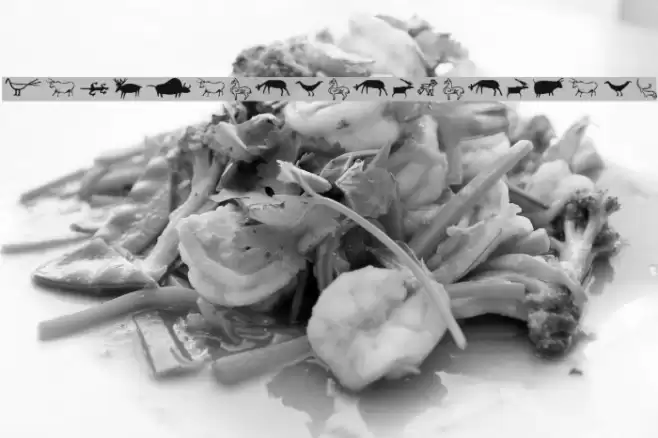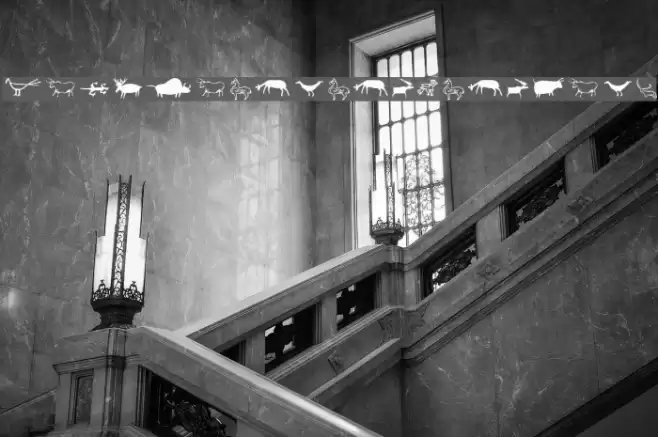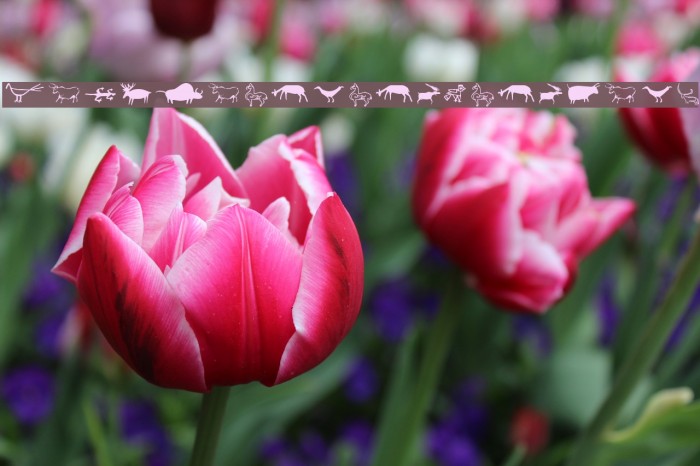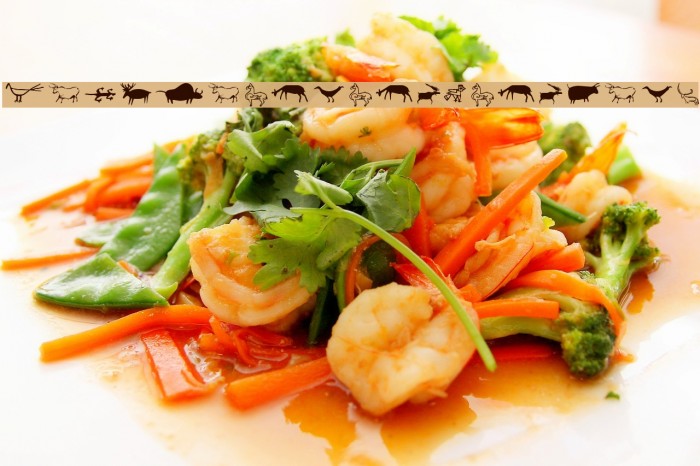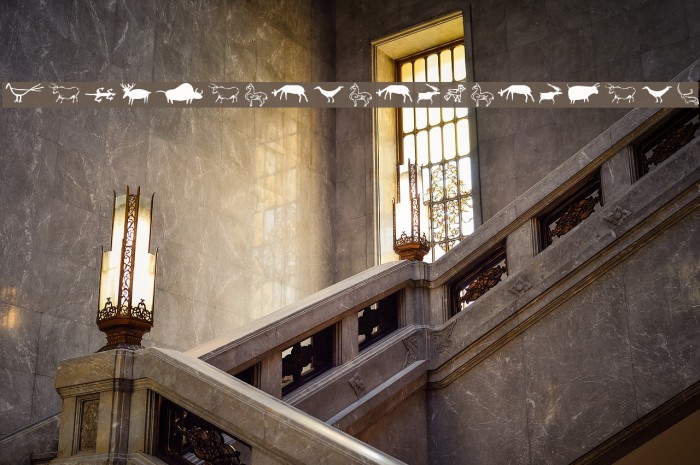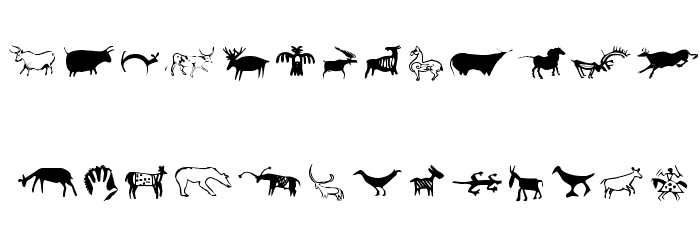
This collection features a series of pictographic symbols inspired by ancient cave paintings. Each character is a unique representation of animals and figures, capturing the essence of prehistoric art. The designs are bold and simplistic, with a focus on silhouette and form. The characters vary in complexity, from simple line drawings to more detailed depictions, all maintaining a consistent style that evokes a sense of history and storytelling. This set is perfect for projects that aim to convey a rustic or primitive aesthetic, offering a visual connection to the past.
A pictographic font inspired by ancient cave paintings, featuring bold and simplistic animal and figure symbols from Dingbats fonts.
- Proposed Projects: Ideal for educational materials, historical documentaries, themed event invitations, or any project seeking a prehistoric or rustic aesthetic.
- Overall Style: Vintage
- Use Case: Logos, Decorative elements, Themed designs